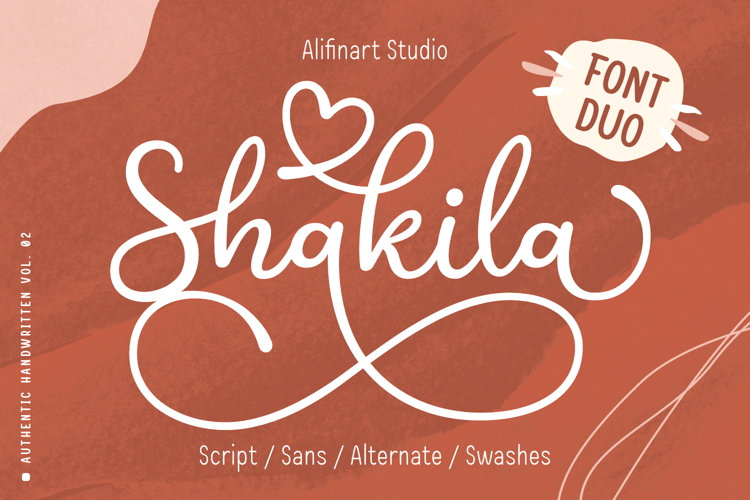
Shakila Script Font
About Shakila Script Font
Shakila Script is a handwritten font created at the end of March 2021. It is a unique bold font with a pretty and charming casual style with many variants of beautiful swashes, as well as an alternative to capital letters.
Shakila is a lovely and delicate font duo (script and sans serif), that exudes elegance and class. This font was particularly crafted for those who need a beautiful and refreshing look to their designs. Also, this font is perfect for branding projects, logo, product designs, invitation cards, wedding cards, stationery designs, advertisements, label, photography, blogging, social media or watermark.
- Multilingual Accents
- Alternative capital letters
- Stylistic Alternates up to 20 choices
- Has a heart connected feature for a-z and A-Z letters
- Has lots of ligatures so that the letters connect well together